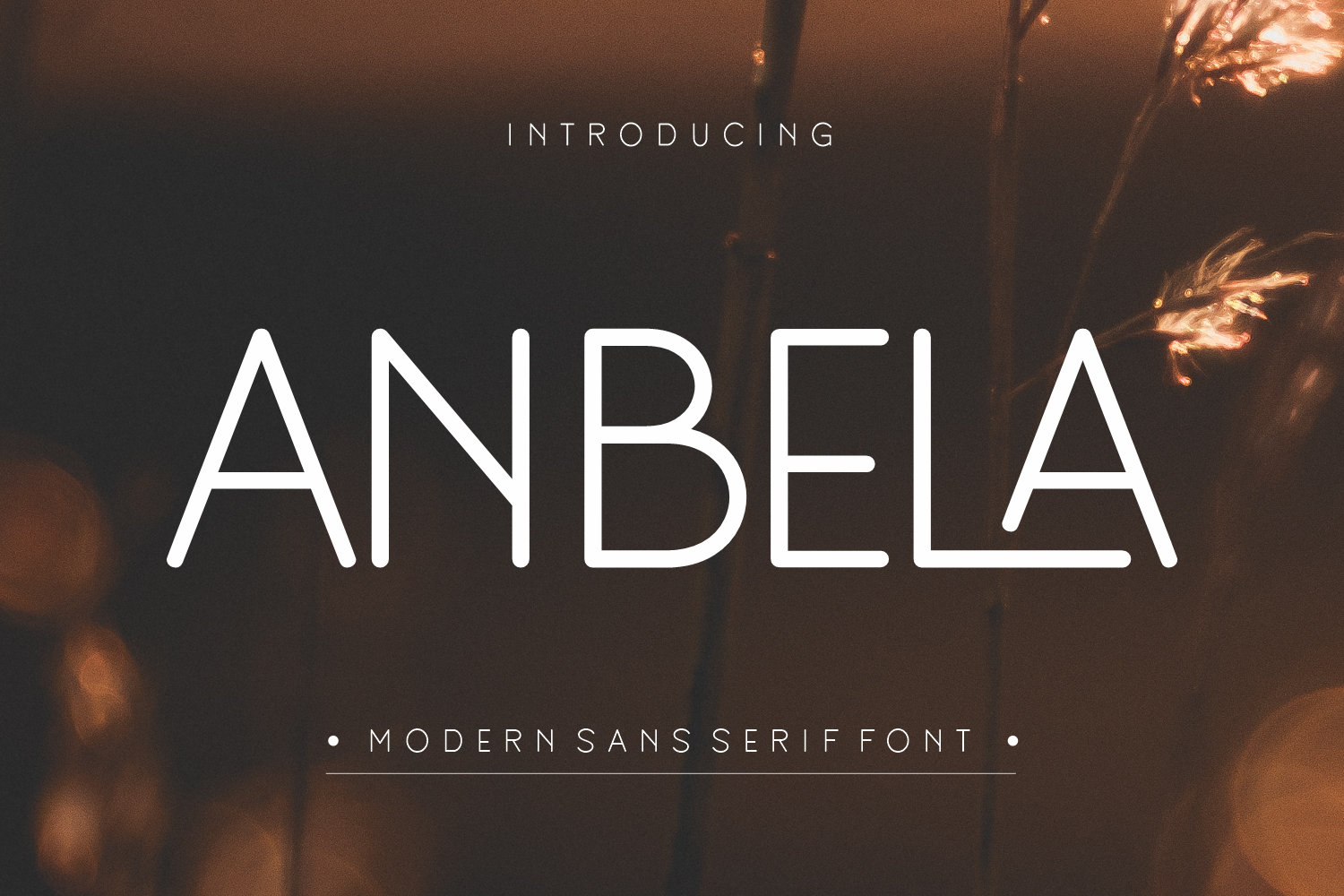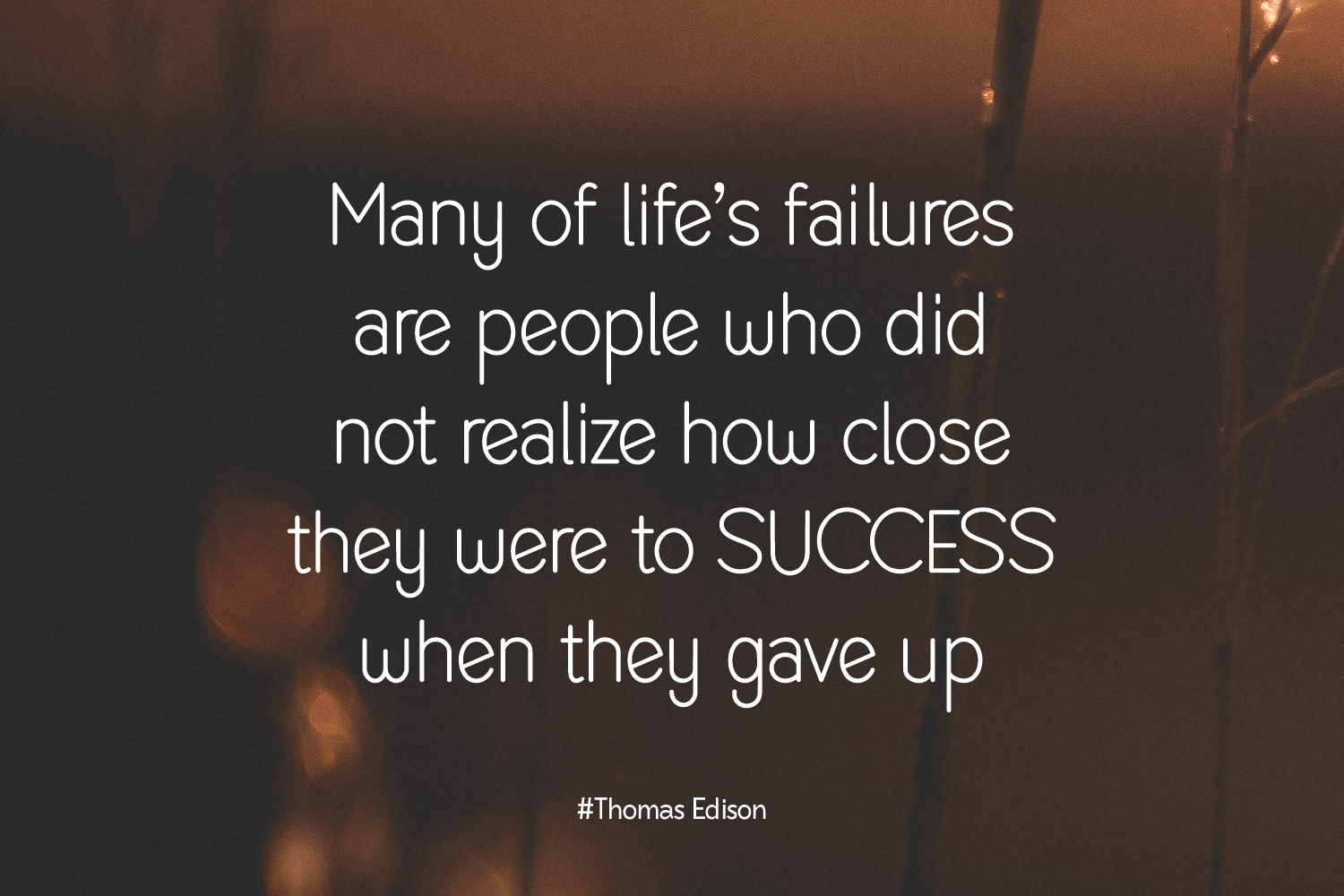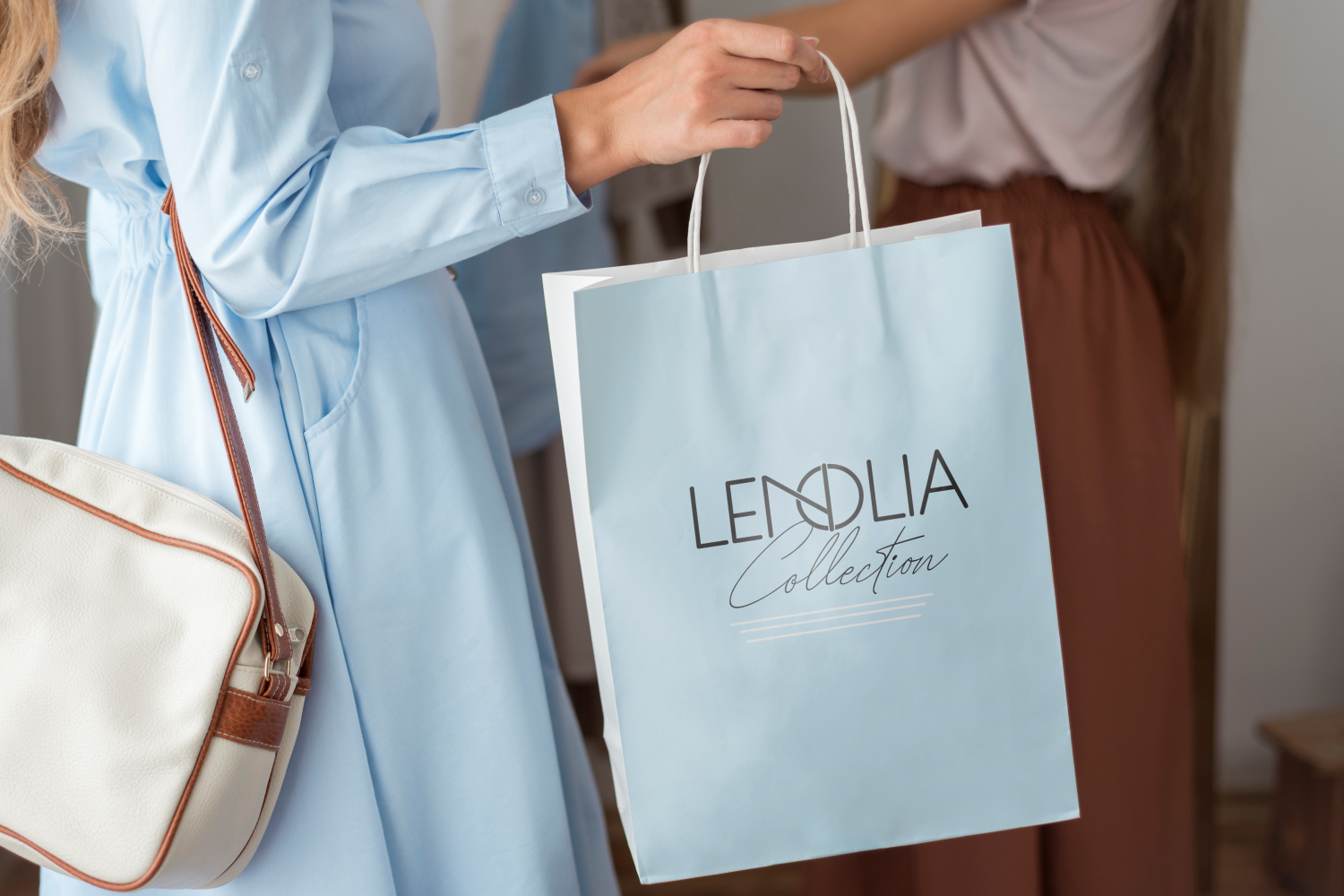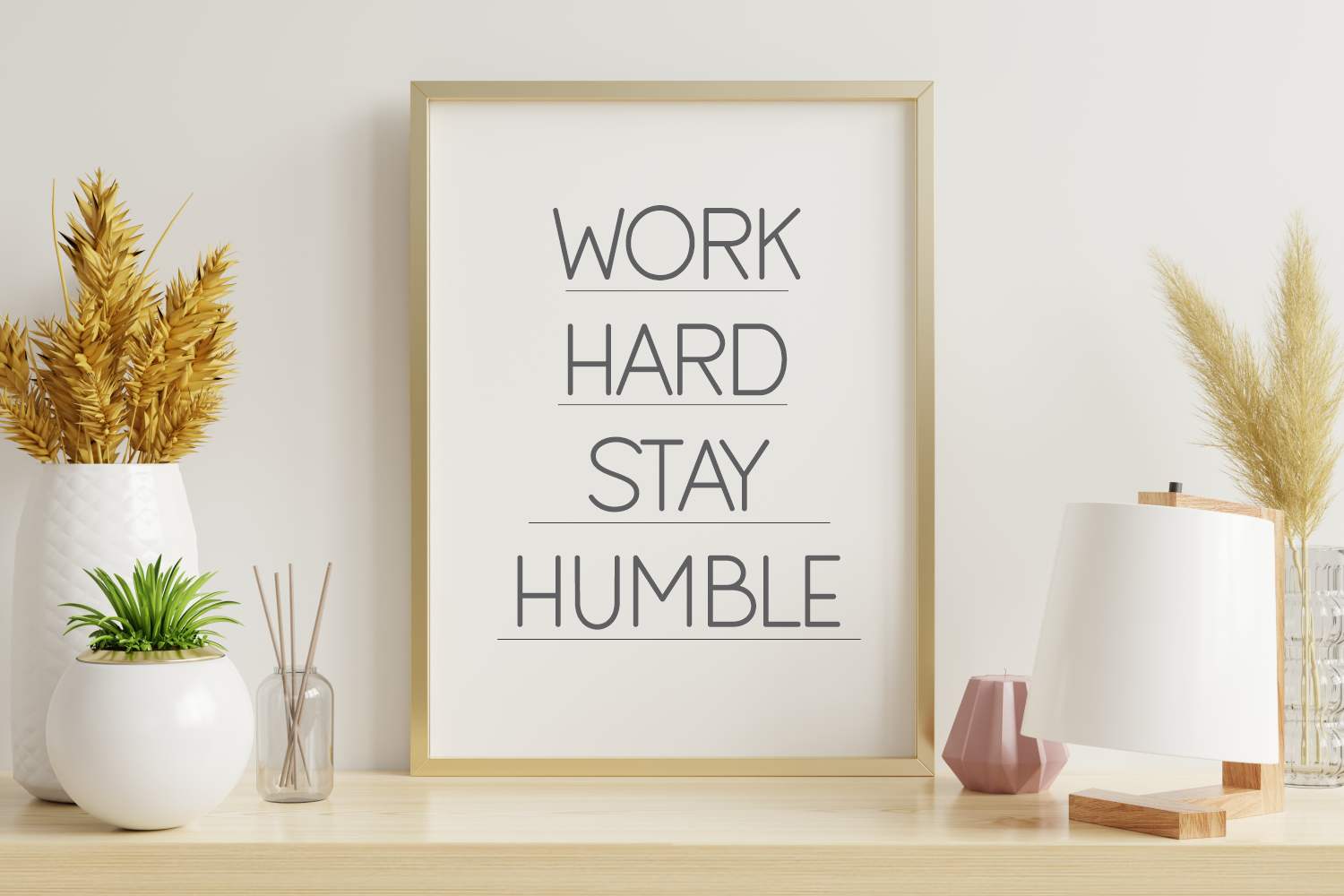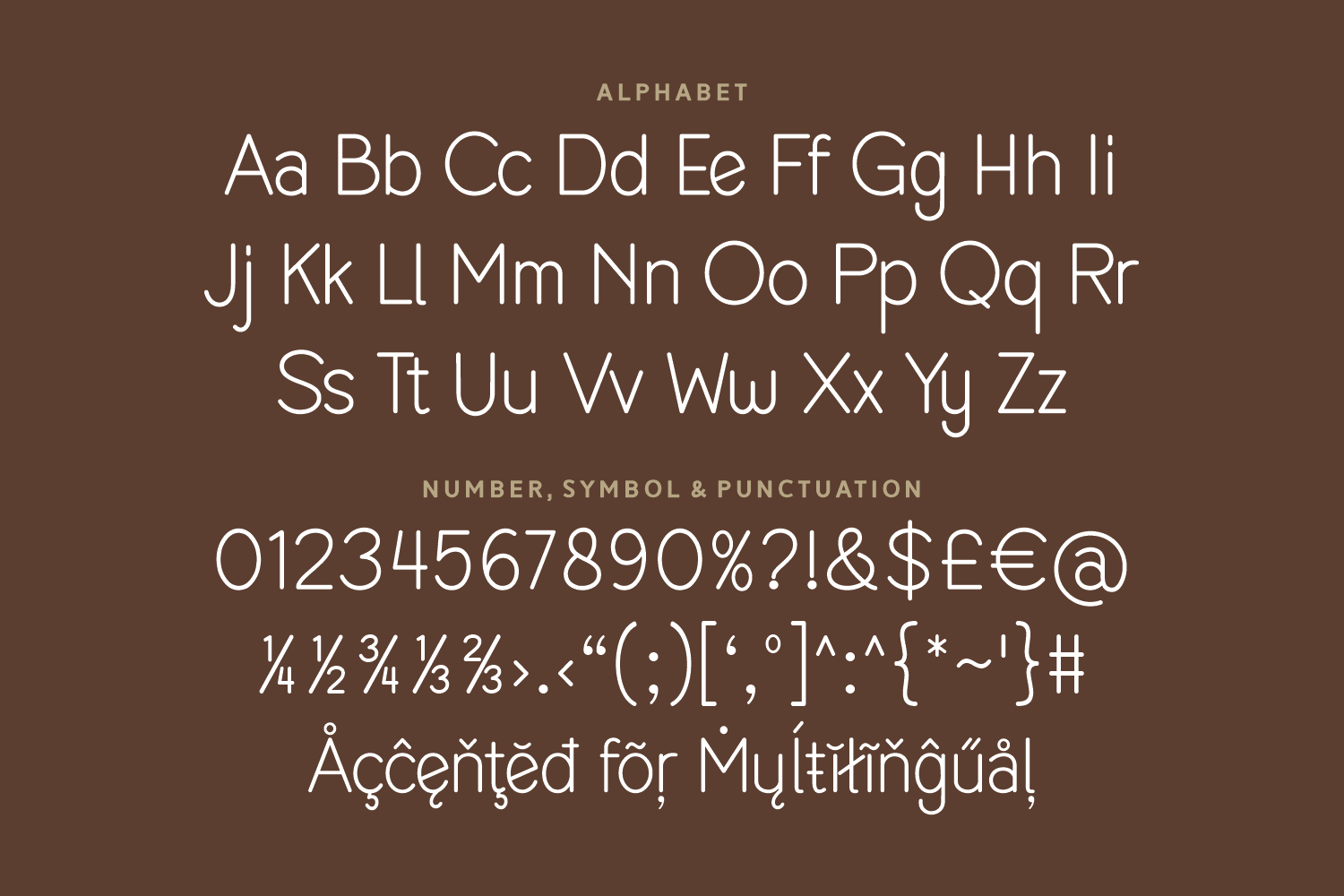
Anbela is a clean and minimal modern sans-serif font with smooth rounded edges and a futuristic touch. Perfect for tech branding, UI design, packaging, and modern lifestyle projects that require elegance with a hint of innovation.